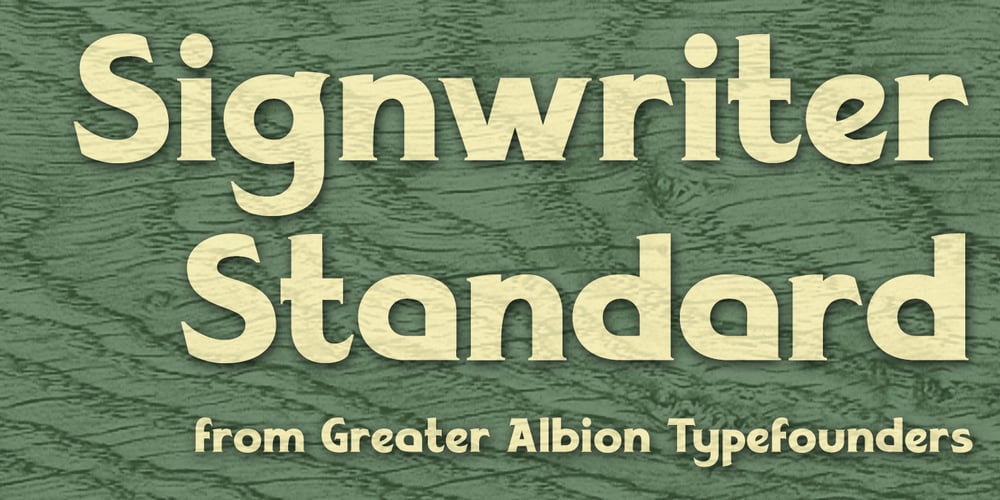
Signwriter Standard
Signwriter Standard font
Signwriter Standard Font Family was designed by Paul James Lloyd and published by Greater Albion Typefounders. Signwriter Standard contains 1 styles and family package options. Typeface for posters and signage. An extensive range of opentype features are incorporated:- Small Capitals, Title forms, stylistic alternates, old-style and lining numerals, ‘small capitals’ numerals, ligatures and so forth. A touch of flair an distinction is given to these solid letter forms by the provision of tiny serifs. Why not use Signwriter Standard and make an emphatic statement today!